1. Mataram Brush Font
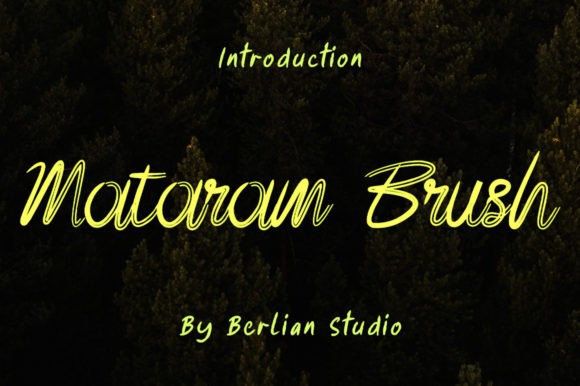
Mataram Brush is a beautiful and unique modern script typeface. The rough texture makes the characters look cool and tough. This type of font is perfectly made to be applied especially in apparel, clothing, labels, logos, magazines, books, greeting/wedding cards, packaging, fashion, make-up, stationery, novels, labels, or any type of product for advertising purposes.
2. Mondisa Cantica Font
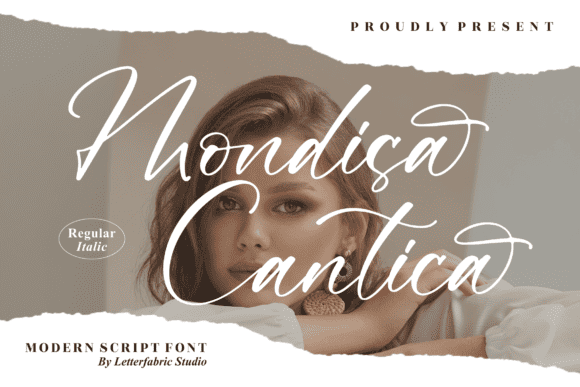
Mondisa Cantica is a beautiful script font, suitable for any projects such as logos, branding projects, homeware designs, product packaging, mugs, quotes, posters, shopping bags, t-shirts, book covers, name cards, invitation cards, greeting cards, labels, photography, watermark, special events, and all your other lovely projects that need a beautiful script taste.
3. Jelliyta Font
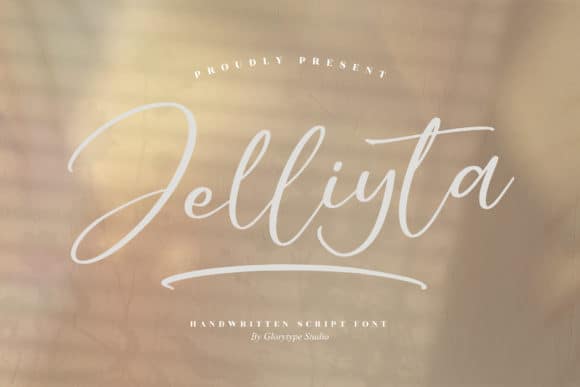
Jelliyta is a beautiful script font, suitable for any projects such as logos, branding projects, homeware designs, product packaging, mugs, quotes, posters, shopping bags, t-shirts, book covers, name cards, invitation cards, greeting cards, labels, photography, watermark, special events, and all your other lovely projects that need a beautiful script taste.
4. Setting Fires Font
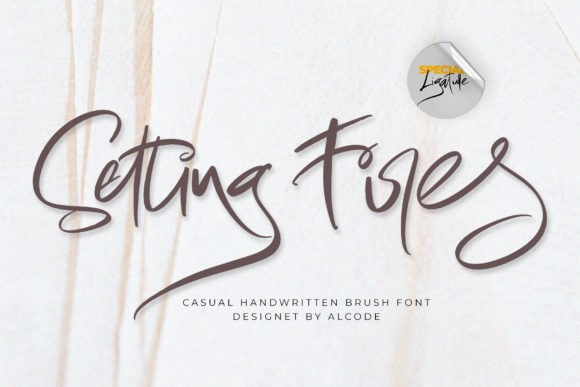
Setting Fires is a casual script font, defined by a natural brush typography. This font is PUA encoded which means you can access all of the glyphs and swashes with ease!
5. Bestt Better Font
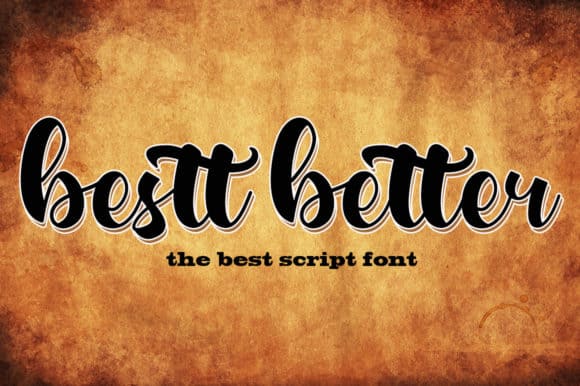
Bestt Better is a chic script font that can be used in a wide range of aspects. It can be added to labels, t-shirts, promotional banners, magazines, and so much more ideas.
6. Hello Anessca Font
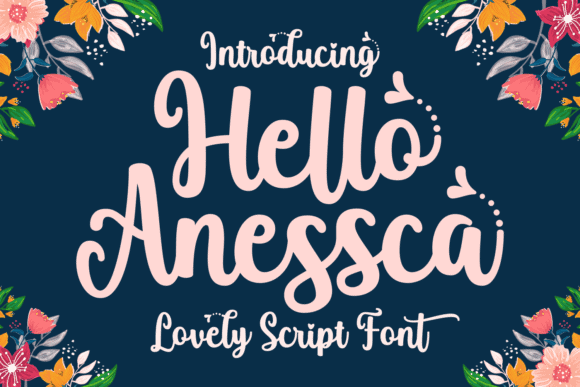
Hello Anessca is a lovely and delicate script font that exudes elegance and class. This font was particularly crafted for those who need a beautiful and refreshing look to their designs. Hello Anessca is PUA encoded which means you can access all glyphs and swashes with ease!
7. Legendday Font
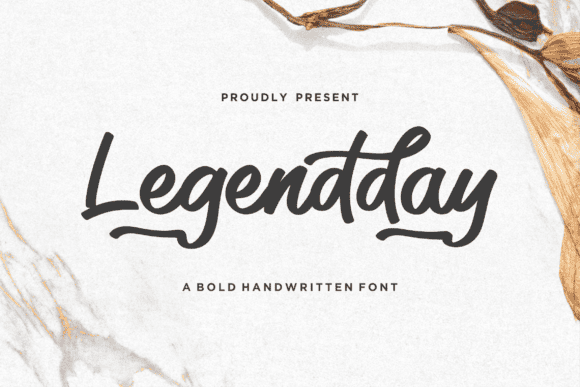
Legendday is a delicate, elegant and flowing handwritten font. It has beautiful and well balanced characters and as a result, it matches a wide pool of designs. Add it to your most creative ideas and notice how it makes them come alive!
8. Syani White Font
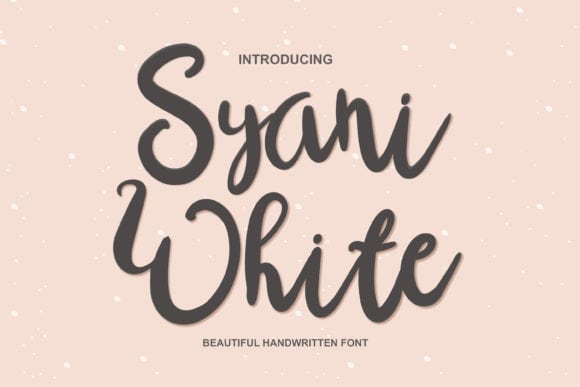
Syani White is a flowing and delicate script font. It has beautiful and well balanced characters and as a result, it matches a wide pool of designs. Add it to your most creative ideas and notice how it makes them come alive!
9. The Raylen Font
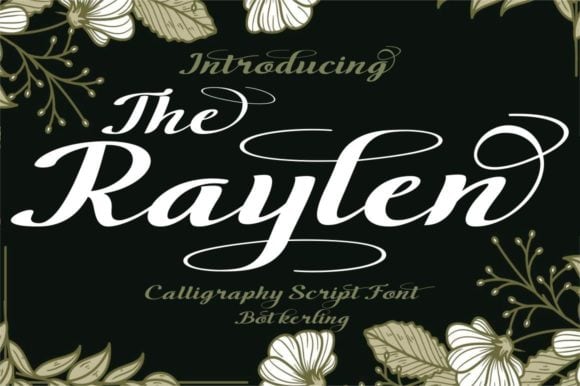
The Raylen is an exquisite handwritten font, masterfully designed to become a true favorite. It maintains its classy calligraphic influences while feeling contemporary and fresh. It is PUA encoded which means you can access all of the glyphs and swashes with ease!
10. Headsound Font
Headsound is an elegant script font with a contemporary atmosphere and impeccable form, inspired by timeless classic calligraphy. Not too thin and not too thick, balanced and varied, this font was designed to enhance the beauty of your projects.